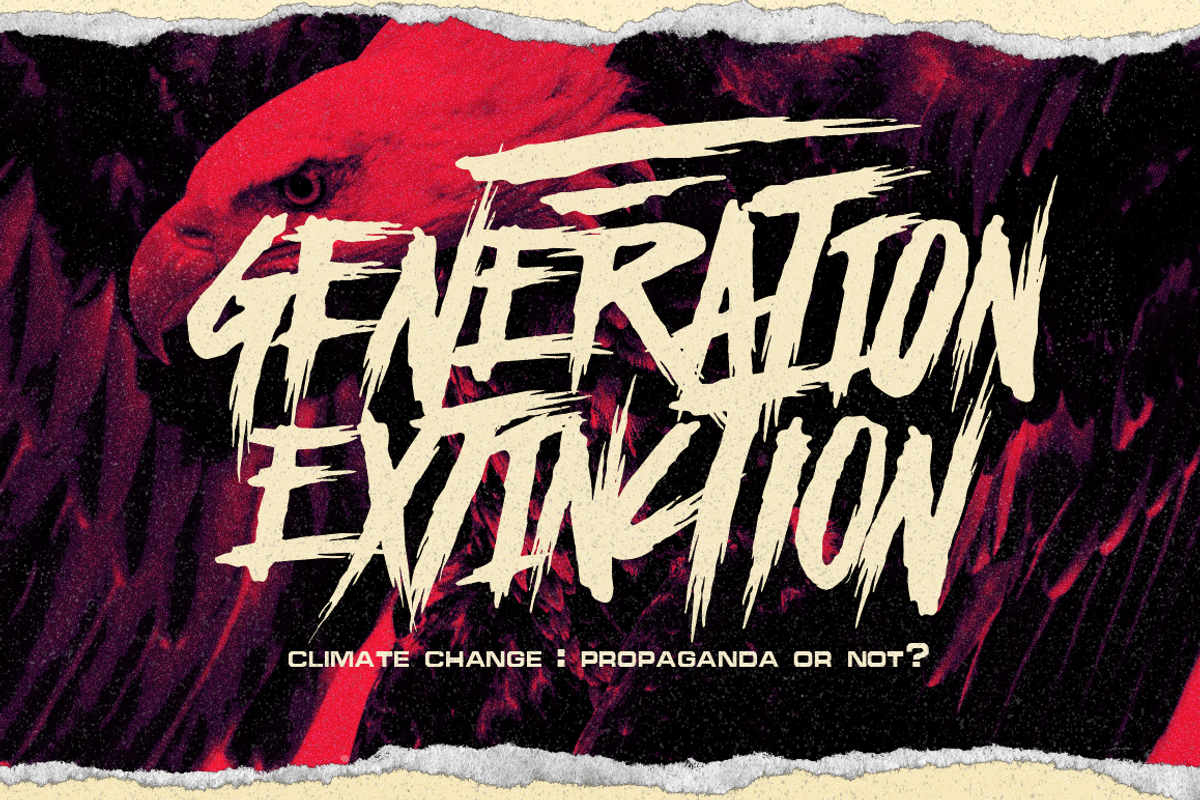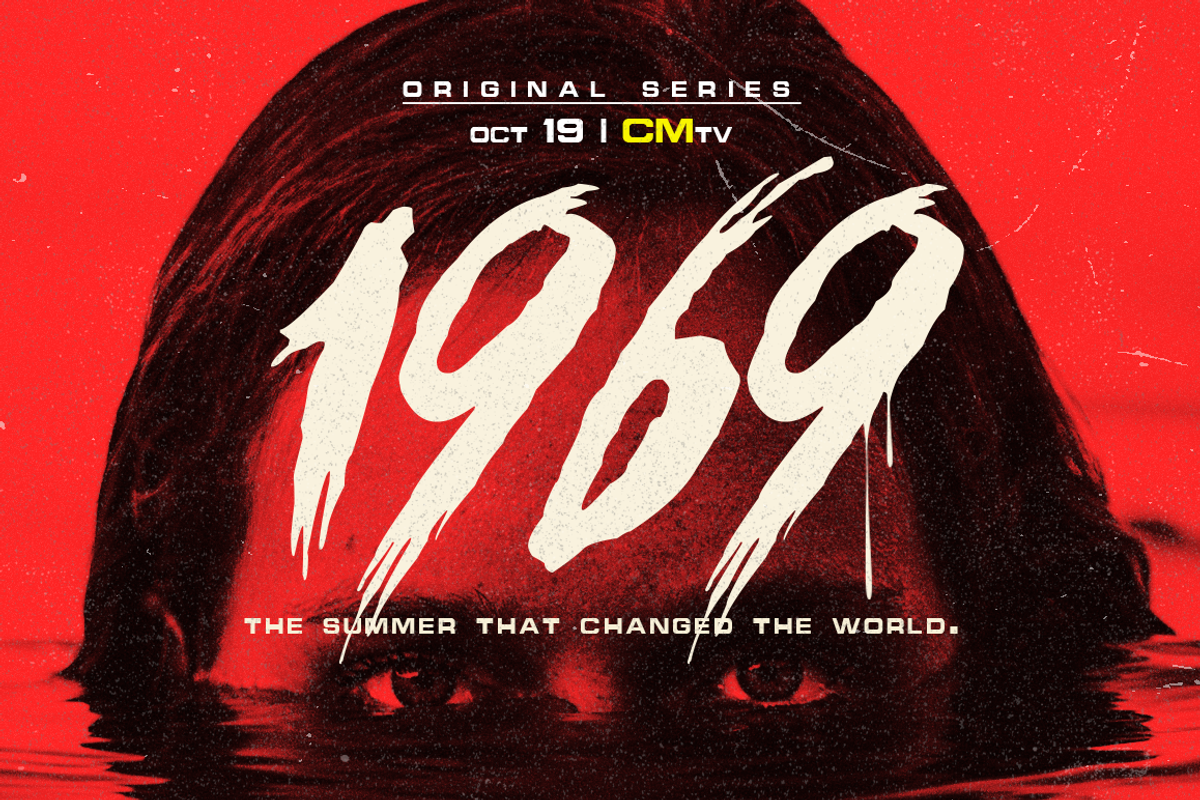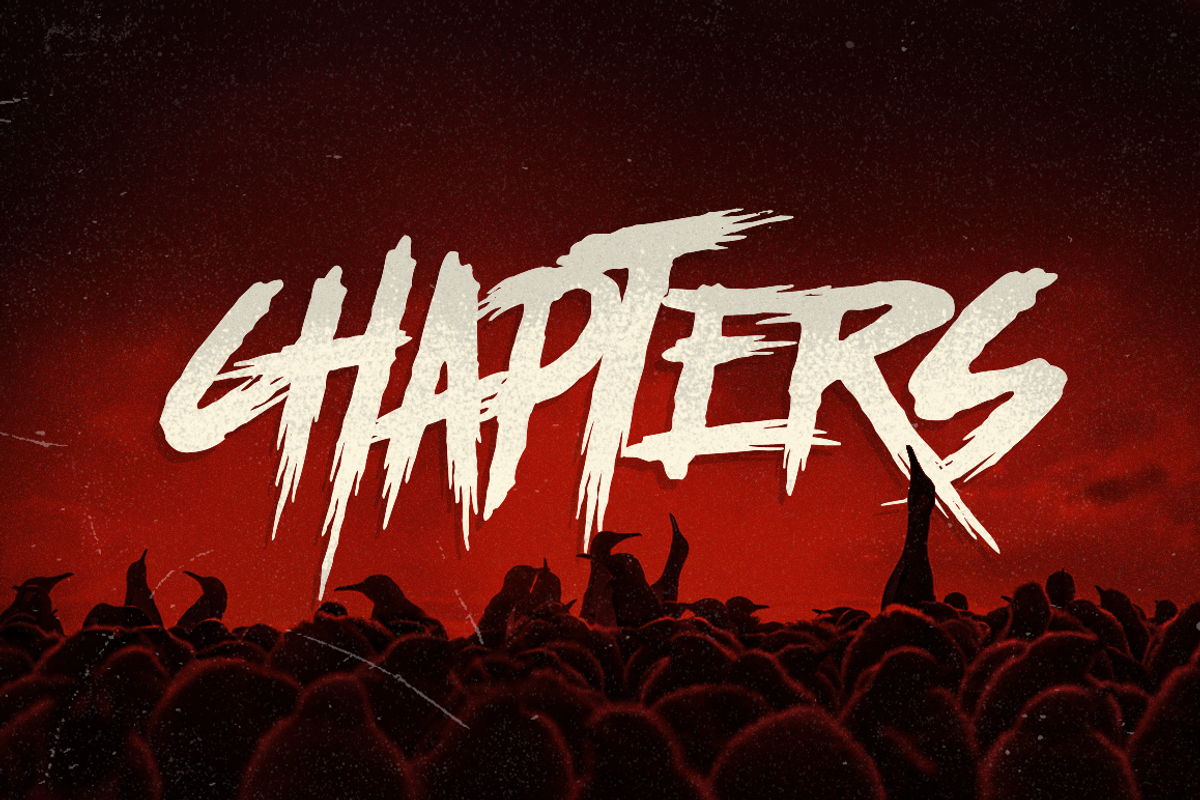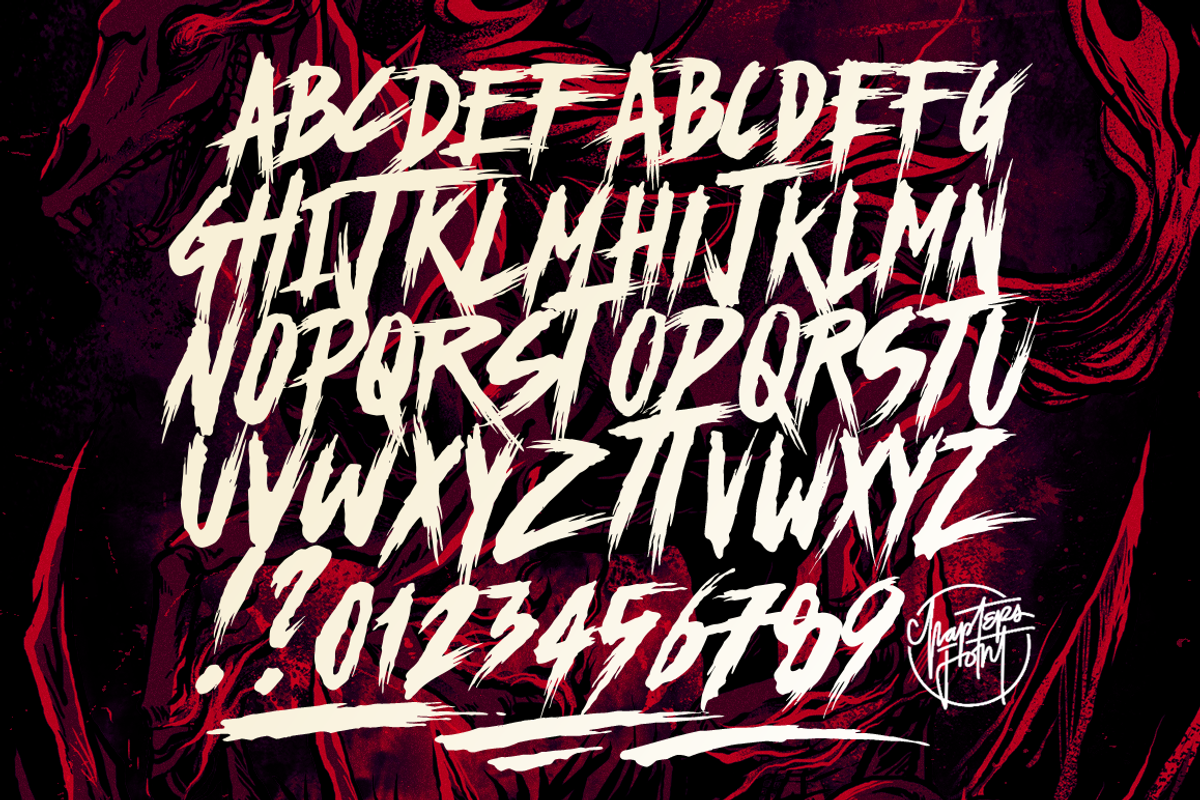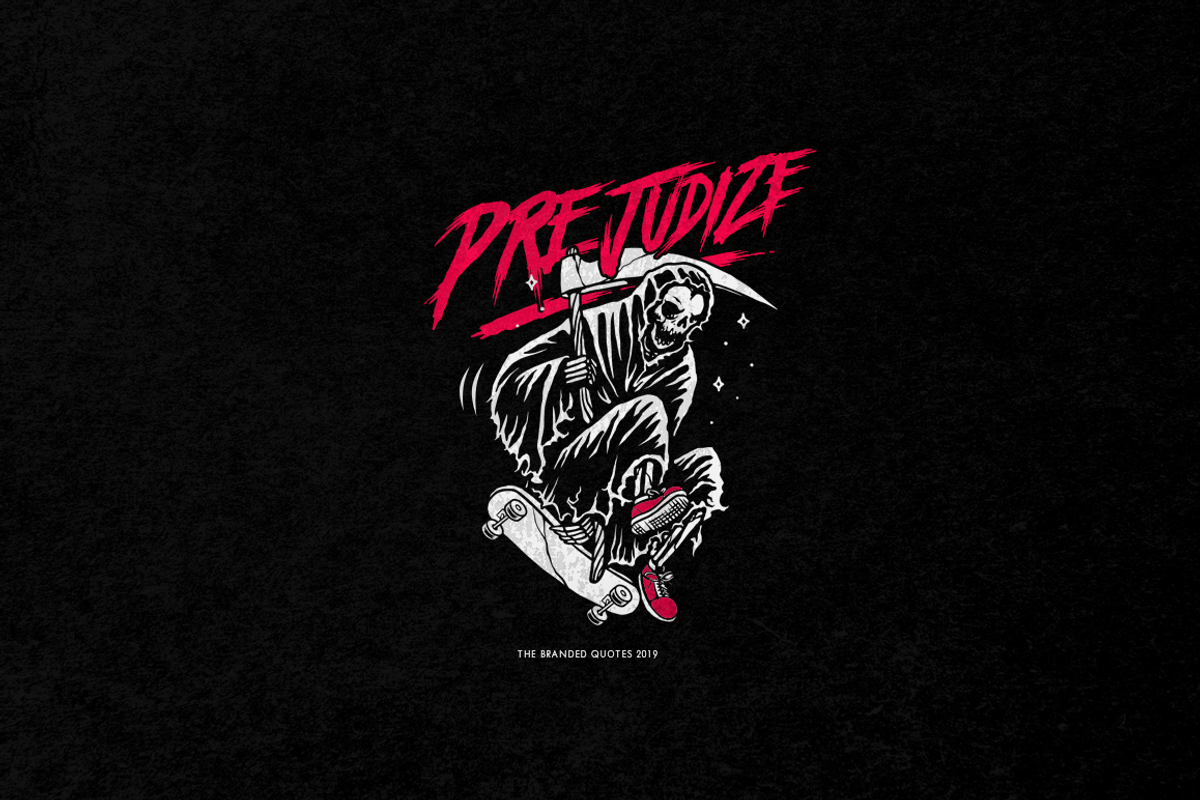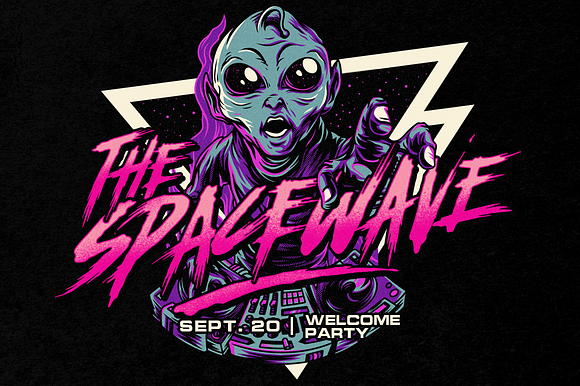
Chapters - Horror Font
Here comes the font for the end times! Chapters is based from our top-selling Haze Typeface. A horror-themed lettering with solid and sharp edges. It can go well with your vector illustrations and spine-chilling photographs. The randomness of Chapters' glyph will provide the creeps to your projects!
- Capitals, Alternates, Ligatures, Kerning, Swashes